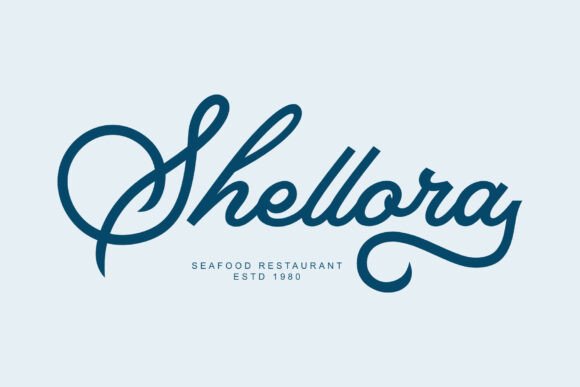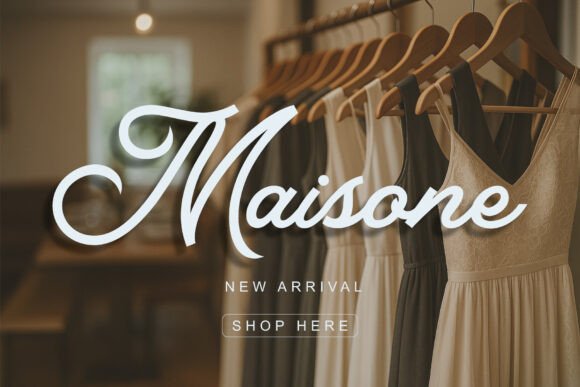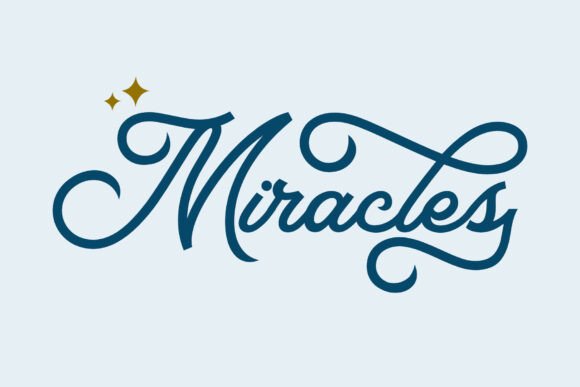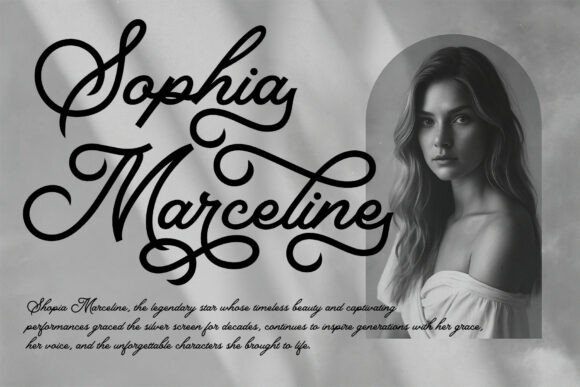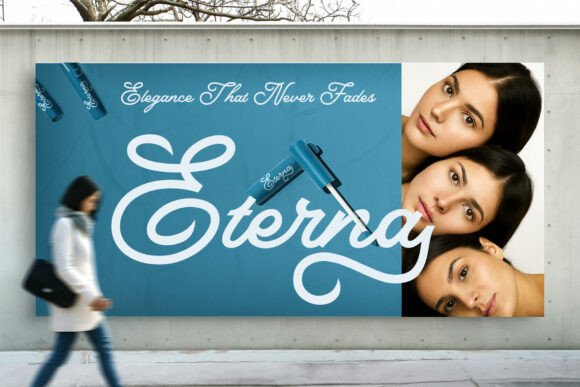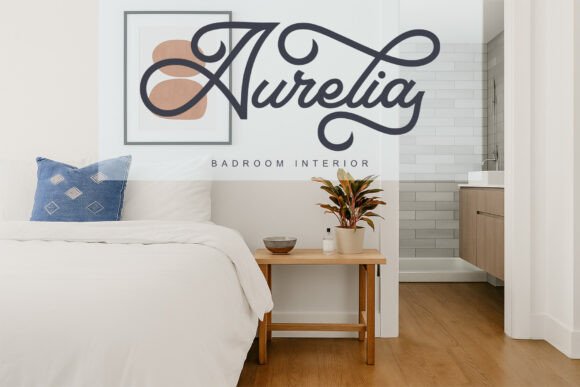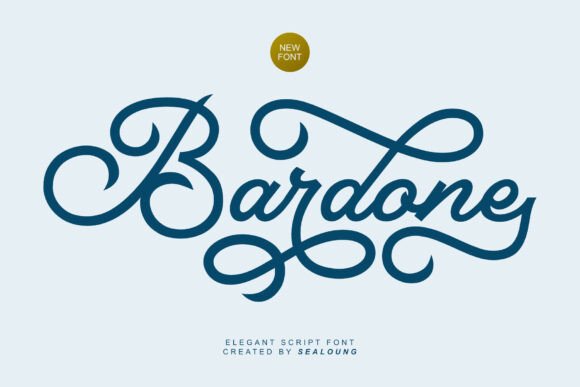
Bardone Font: Elevate Your Creative Projects with Elegance and Sophistication
In the world of design, fonts play a crucial role in conveying the tone and personality of a project. Whether you’re a designer, crafter, or entrepreneur, finding the right font can make all the difference. If you’re looking for a modern, casual script font with an elegant touch, look no further than Bardone Font. In this article, we’ll explore the features and benefits of Bardone Font, and how it can elevate your creative projects.
What is Bardone Font?
Bardone Font is a modern casual script font that exudes elegance and sophistication. Its unique blend of classic and contemporary elements makes it perfect for a wide range of creative projects. With Bardone Font, you can add a touch of refinement and luxury to your designs, making it ideal for projects that require a high level of creativity and flair.
Key Features of Bardone Font
• Modern Casual Script Font: Bardone Font features a modern, casual script style that’s perfect for designs that require a touch of elegance and sophistication.
• Elegant Touch: With its refined and luxurious feel, Bardone Font is ideal for projects that require a high level of creativity and flair.
• PUA Encoding: Bardone Font includes PUA encoding, making it easy to access all special characters and decorative elements without additional software.
• Wide Range of Uses: Bardone Font is perfect for a wide range of creative projects, including crafting, branding, logos, invitations, stationery, wedding designs, social media posts, advertisements, product packaging, product designs, labels, posters, photography, special events, and more.
Benefits of Using Bardone Font
So, why choose Bardone Font for your creative projects? Here are just a few benefits of using this versatile font:
• Stand Out from the Crowd: With its unique and elegant style, Bardone Font can help your designs stand out from the crowd and make a lasting impression.
• Highly Versatile: Bardone Font can be used for a wide range of creative projects, making it a valuable addition to any designer’s font library.
How to Use Bardone Font in Your Designs
Using Bardone Font in your designs is easy. Here are a few tips to get you started:
• Crafting: Use Bardone Font to create beautiful and unique craft projects, such as handmade cards, gift tags, and scrapbook pages.
• Branding: Use Bardone Font to create a cohesive brand identity, including logos, business cards, and letterheads.
• Wedding Designs: Use Bardone Font to create stunning wedding designs, including invitations, wedding stationery, and ceremony programs.
• Social Media Posts: Use Bardone Font to create eye-catching social media posts that stand out from the crowd.
In conclusion, Bardone Font is a versatile and elegant font that’s perfect for a wide range of creative projects. With its modern casual script style, PUA encoding, and wide range of uses, Bardone Font is a valuable addition to any designer’s font library. Whether you’re a designer, crafter, or entrepreneur, Bardone Font can help you elevate your designs and make a lasting impression.